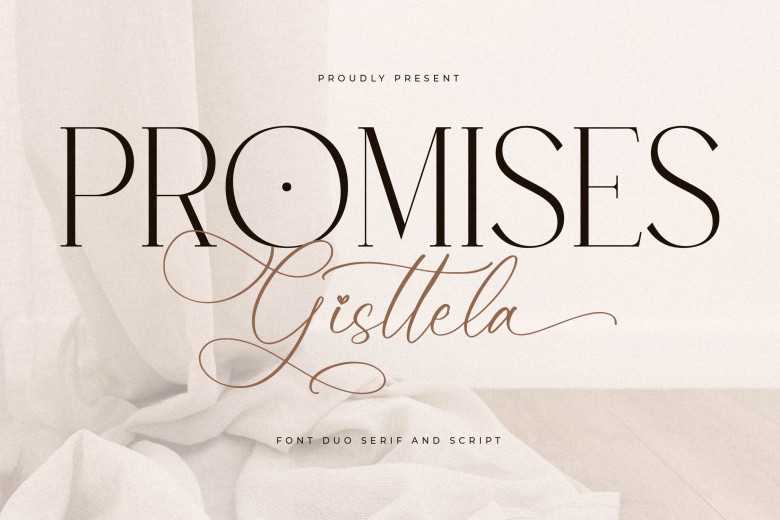
Promises Gisttela Font
Promises Gisttela is a serif and script font pair that features distinctive style and contemporary appeal, perfect for creating luxurious and sophisticated logos, movie or book name designs, fashion brand magazines, clothing letters, quotes and much more.
Promises Gisttela Serif Font Duo